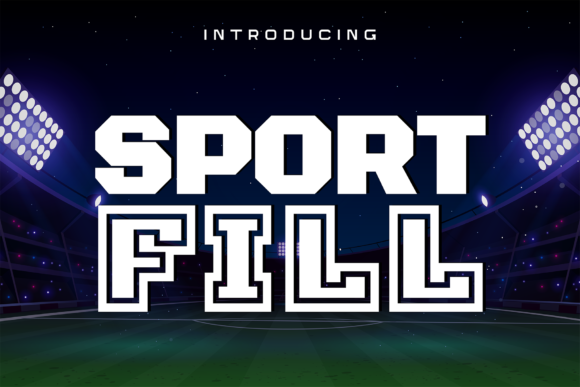
In an era where visual communication reigns supreme, your design aesthetic can make or break your brand identity. Enter Sport Fill Font - a cutting-edge display font that will infuse your projects with a captivating edge. This bold and assertive typeface is meticulously crafted with a robust outline and meticulously designed characters that speak to the modern, progressive spirit of your brand.
Unleash the power of Sport Fill Font to create stunning publications that leave an indelible impression. Its bold strokes and dynamic curves demand attention, ensuring that your headlines, titles, and logos command the limelight. The font's distinct style seamlessly adapts to both print and digital platforms, making it the ultimate choice for designers seeking versatility.
Beyond its aesthetic appeal, Sport Fill Font boasts a user-friendly design that makes customization a breeze. Effortlessly scale it to various sizes without sacrificing clarity or sharpness, allowing you to create designs that resonate with your brand's unique voice. Whether you're crafting striking business cards, designing captivating t-shirts, or adding a touch of elegance to invitations, Sport Fill Font is your ultimate creative companion.
More than just a font, Sport Fill Font is an investment in design excellence. Its versatility and limitless creative potential make it an indispensable asset to any designer's toolkit. Join the ranks of forward-thinking creatives who embrace Sport Fill Font to create designs that resonate, inspire, and leave a lasting impact.